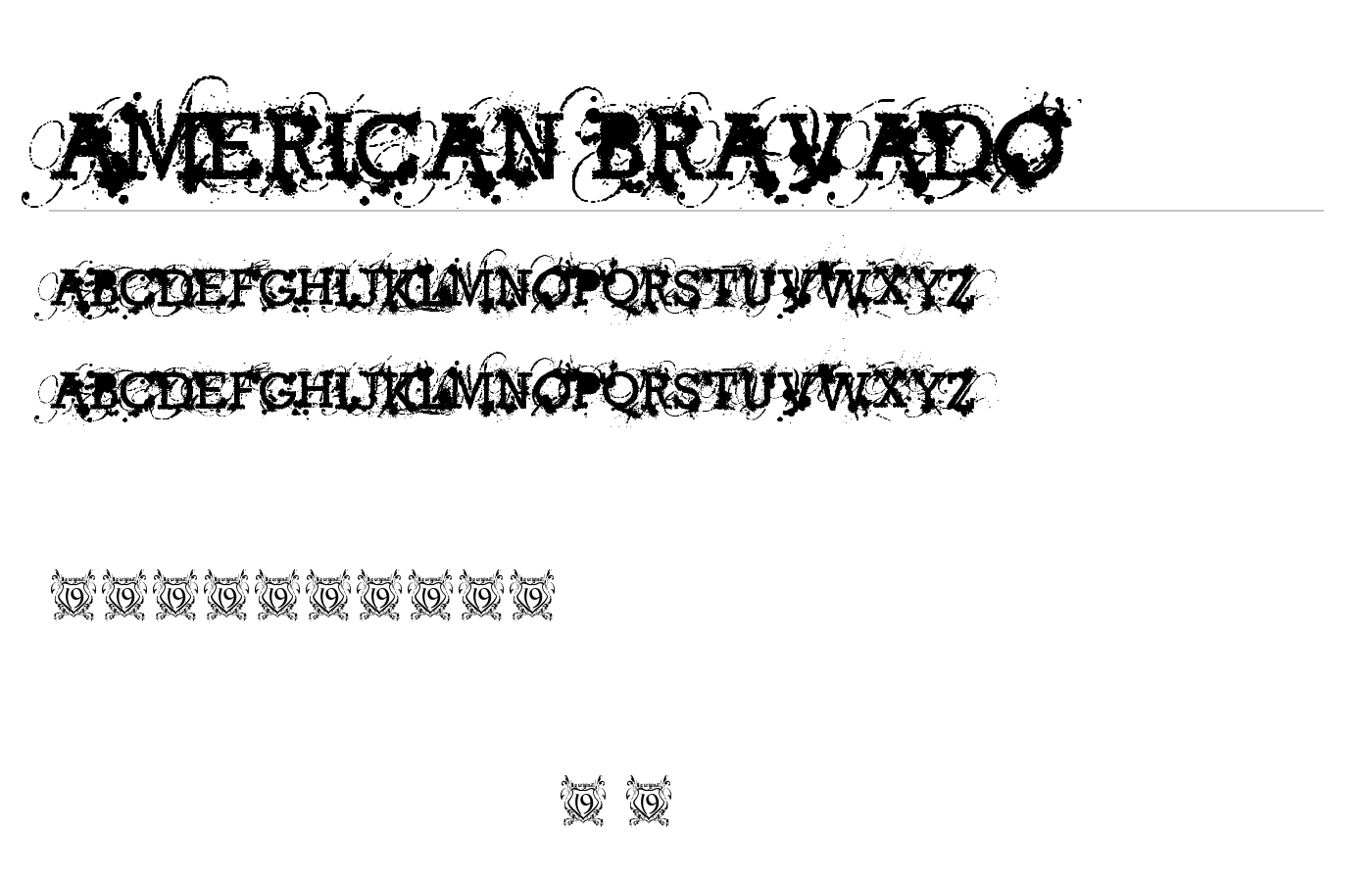
American Bravado is a bold, decorative serif font with a distressed, grungy texture that gives it a rebellious, vintage feel. Its heavy weight and ornate details make it perfect for eye-catching headlines, posters, and branding that want to evoke a raw, edgy character with strong personality. This font works best in creative and informal designs where a rugged, expressive style is desired.
American Bravado Font